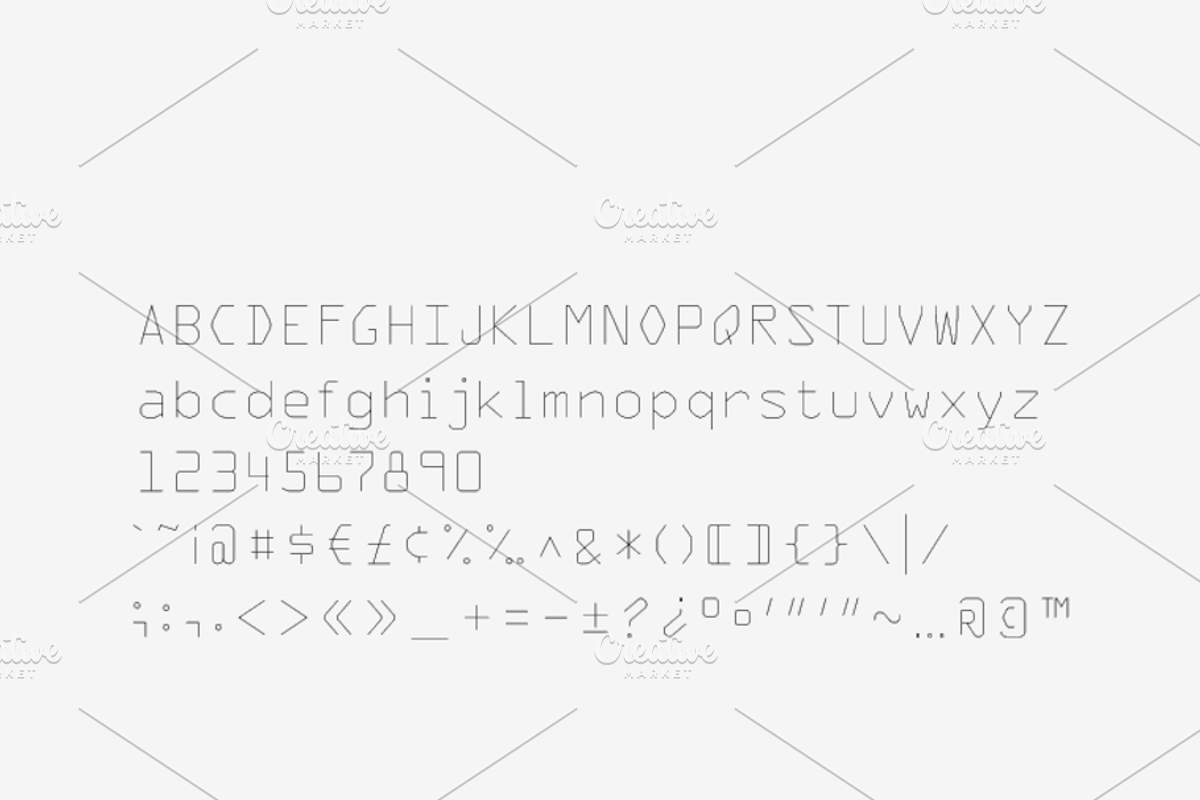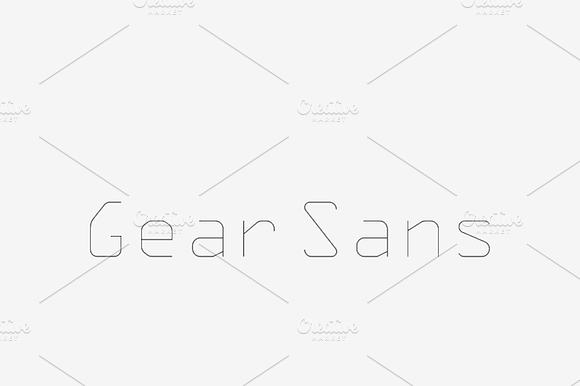
Gear Sans - Laser, Craft Cutter Font
Simple and easy to read at any size. Ideal for where speed and accuracy are required. Great for part identification and serial numbers.
12x Faster than Raster Easy-to-read
A New Level of Performance & Accuracy
From felt tip pen to laser etch, TrueStroke Single-Stroke Fonts unique design dramatically increase performance, accuracy and draw/cutting/burn times by 12 times faster than standard font images while forming a much smoother letter.
Engraving and etching type up to now has been slow, and many times the result is less than perfect. There are primarily two methods of operation, Raster, and Outline. Raster (raster or bitmap images are a dot matrix data structure that represents a grid of pixels) takes a great deal of time, and small letters can become muddled, the other option is to Outline the type - this also takes time, and many letters can become over-cut or over-burned.
The answer seemed to be simple. Single-line fonts, (also referred to as, engraving fonts or plotter fonts) are specifically designed for use when performing engraving or line drawing operations. The purpose of a single-line font is to reduce the actual font displayed to a single line. Though it may appear as if the font is a single line, the machine software may read it differently.
The issue remains that most operating systems that employ the standard font formats, TrueType & OpenType, (more commonly used in laser printers or other high-resolution devices), are limited to only reading fonts with closed paths. These closed paths only perform correctly on letters that are naturally closed like ‘0’, ‘O’ & ‘D.’
Single-line fonts WITHOUT closed paths may not display correctly, add stokes to create closed paths or even expand without crucial lines. In any instance, single-line fonts are limited and unreliable.
TrueStroke Single-Stroke Fonts display and perform just like any other TTF or OTF font, though require conversion/expansion to outline/wireframe creating the single-stroke vector image before sending to your machine.